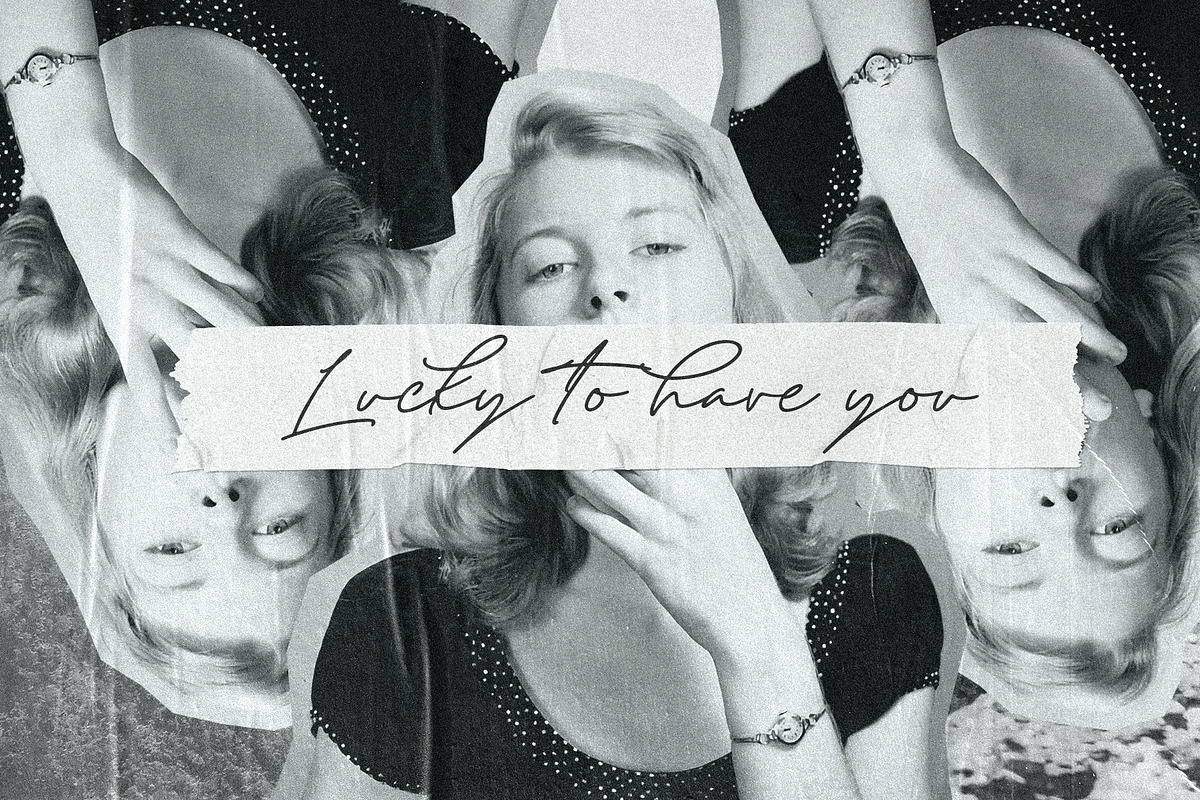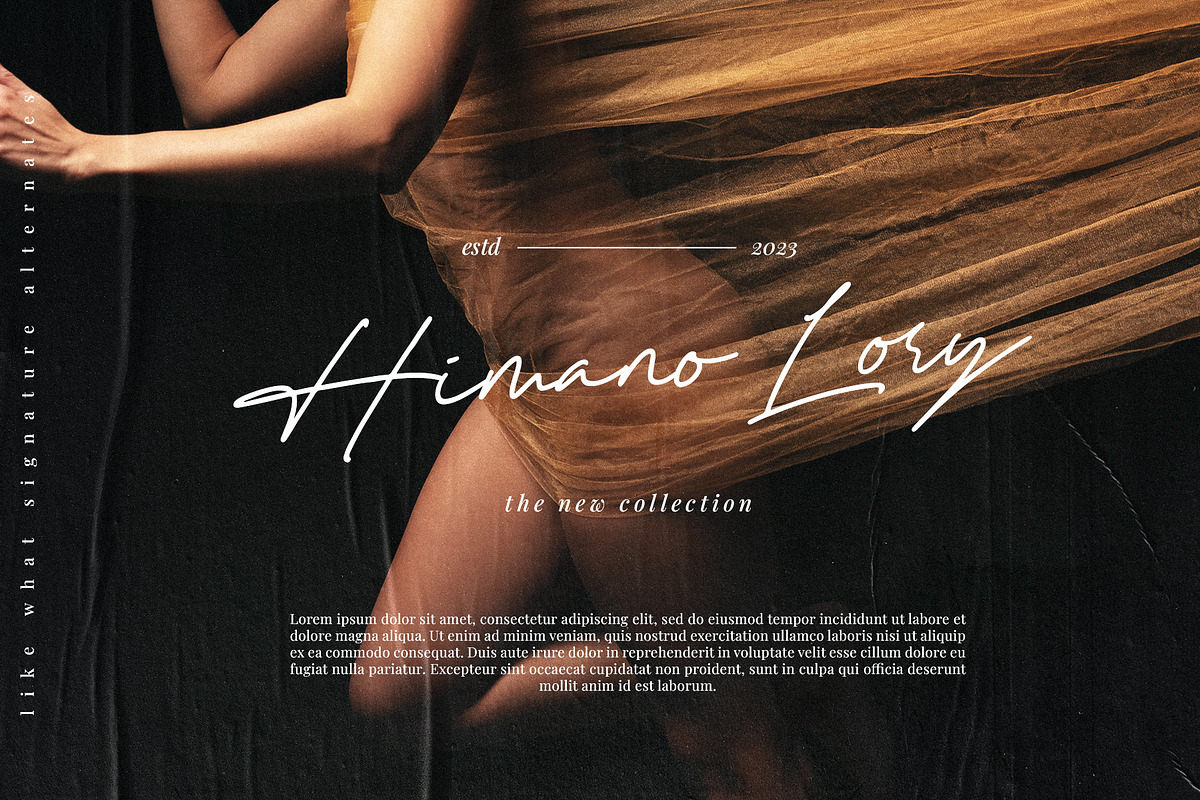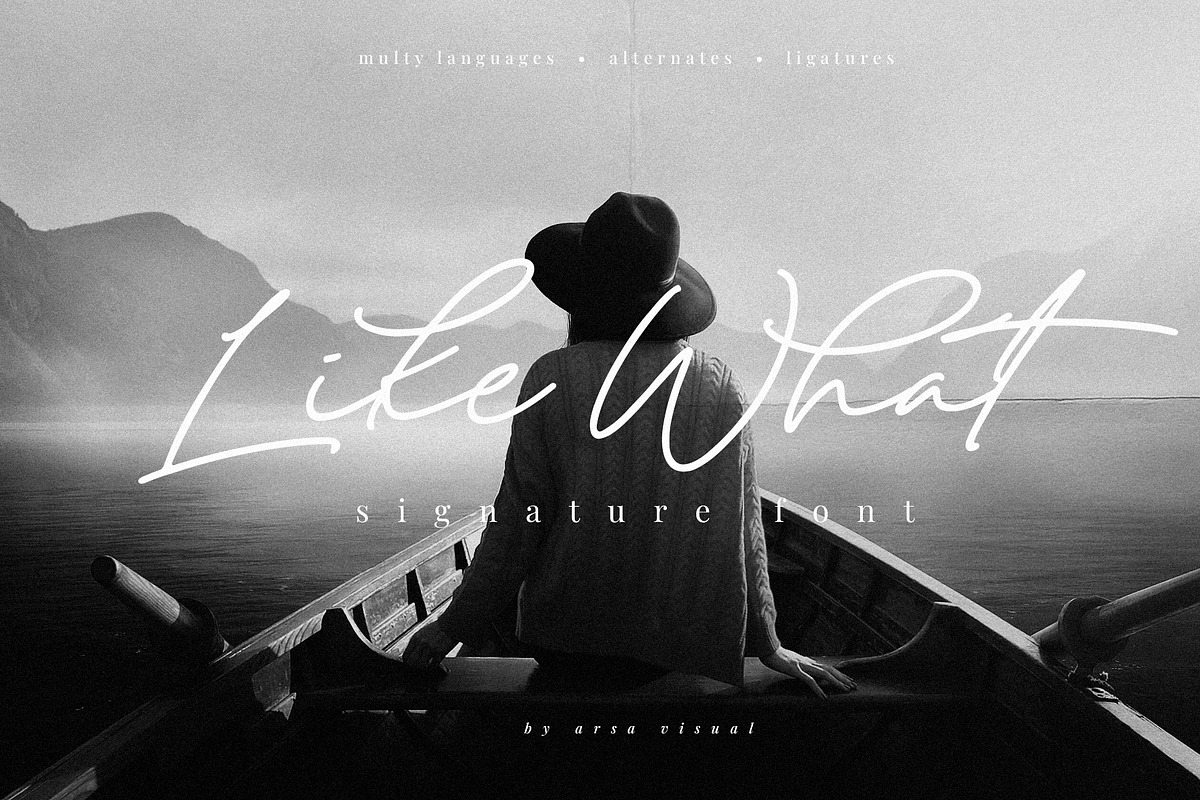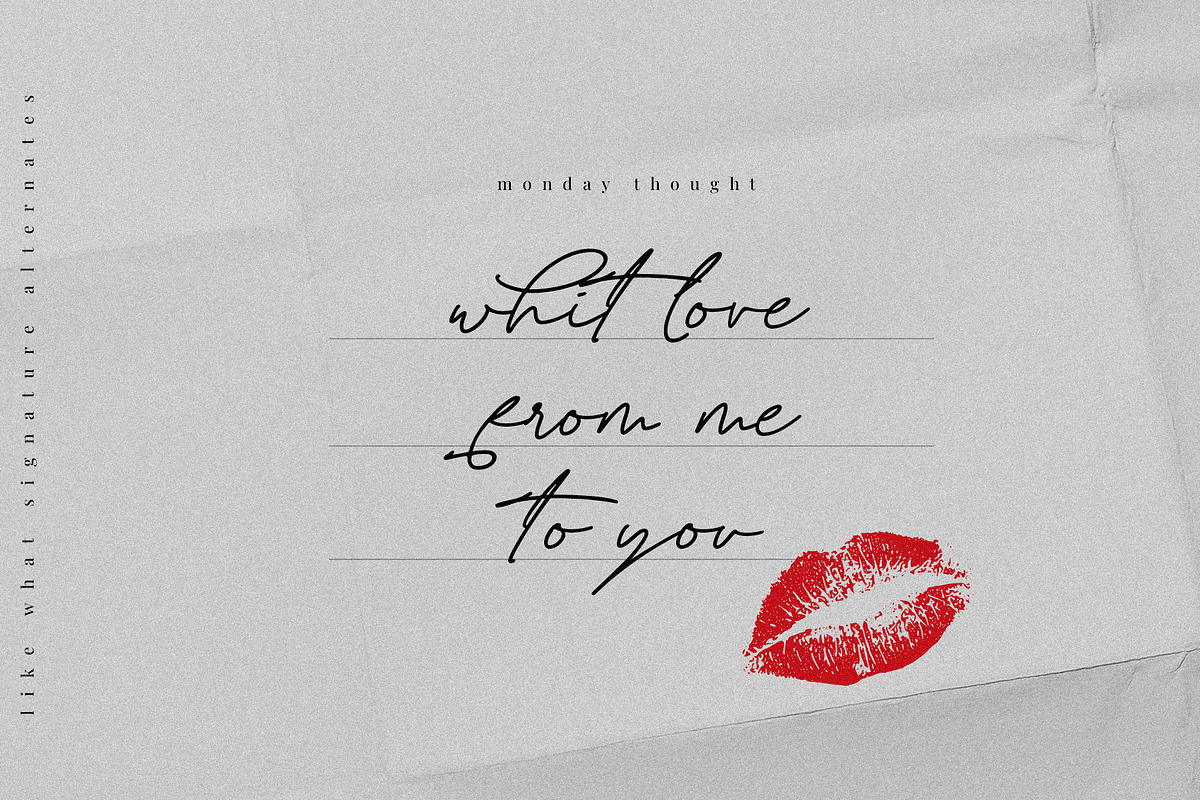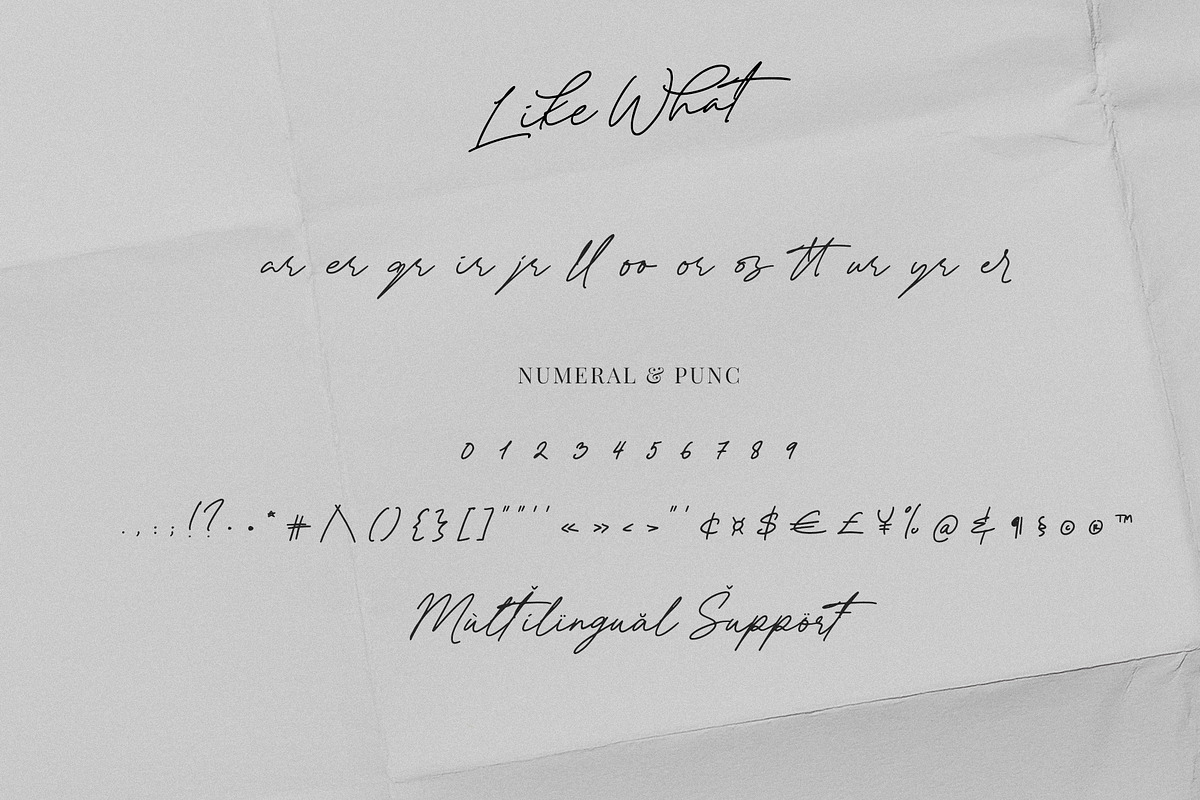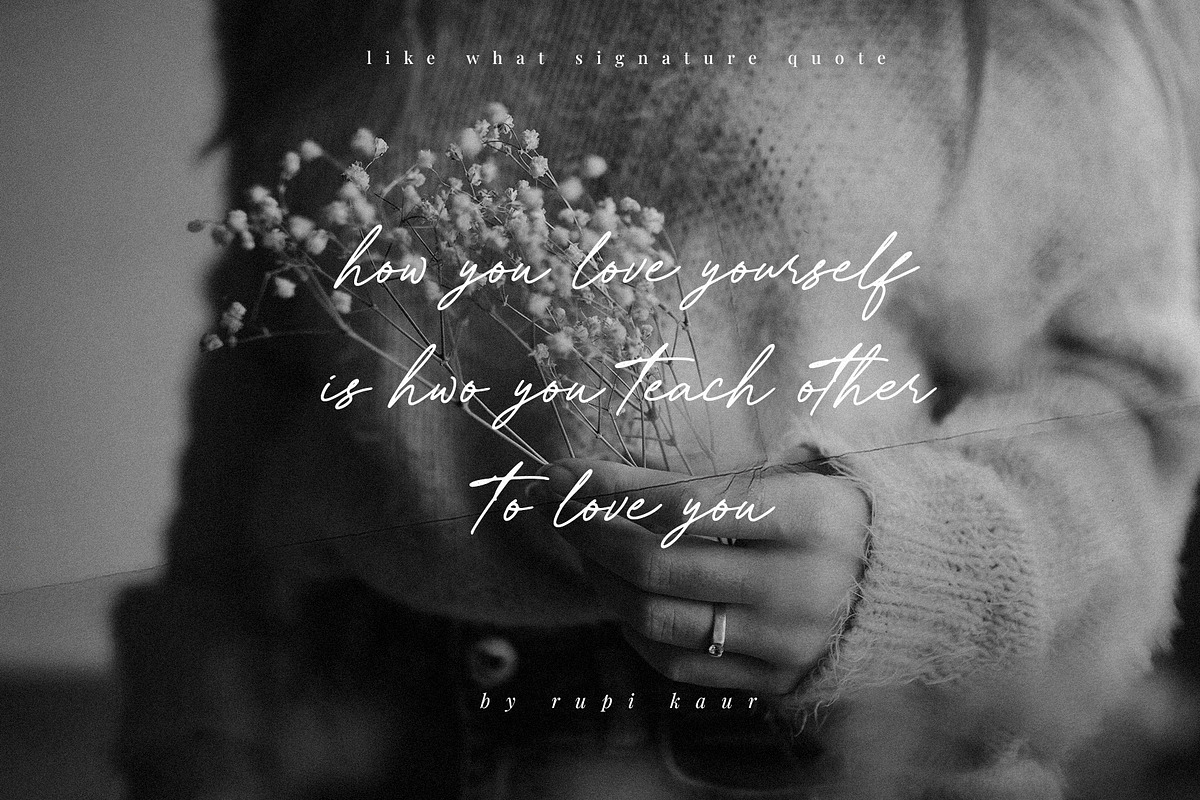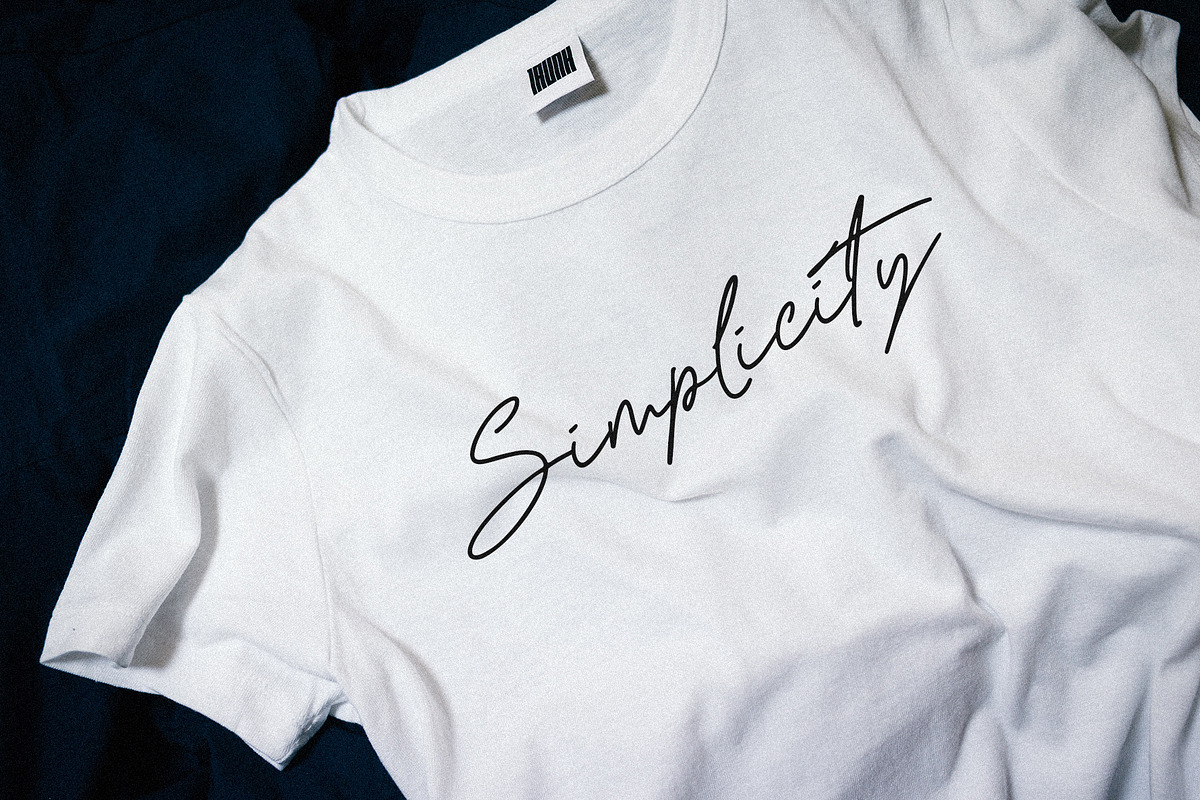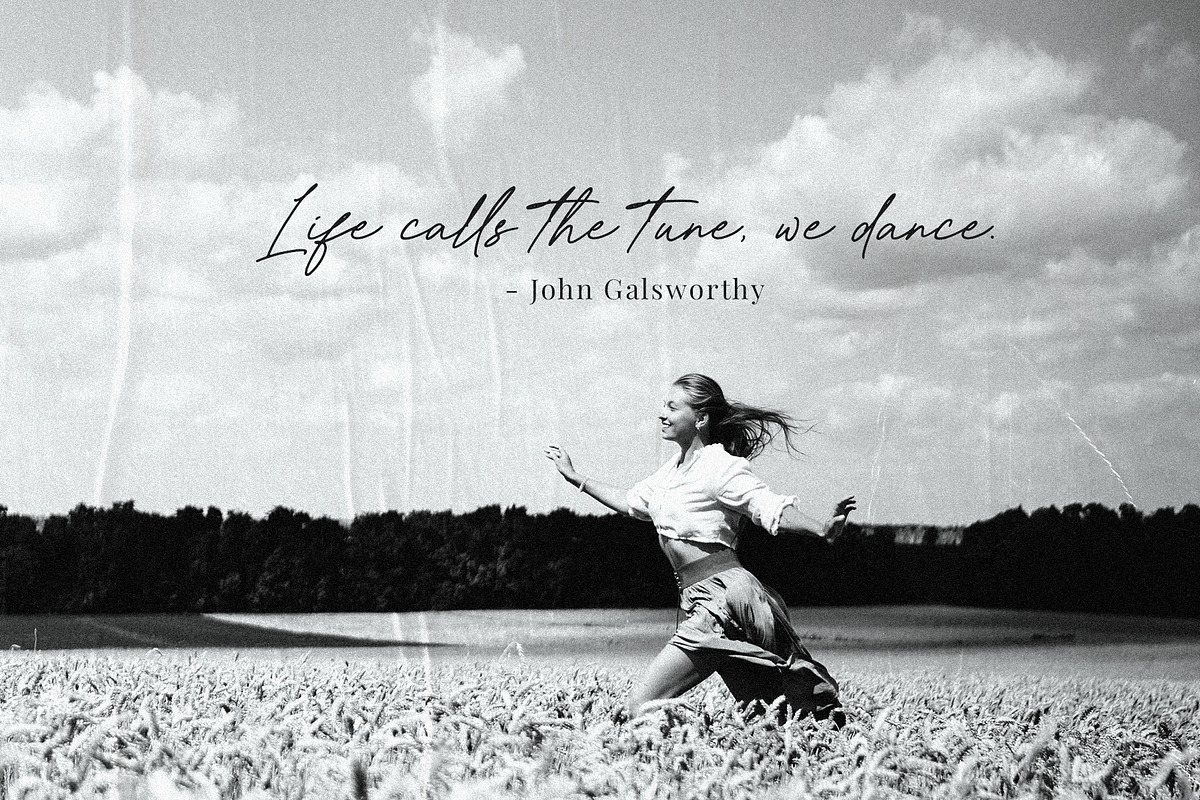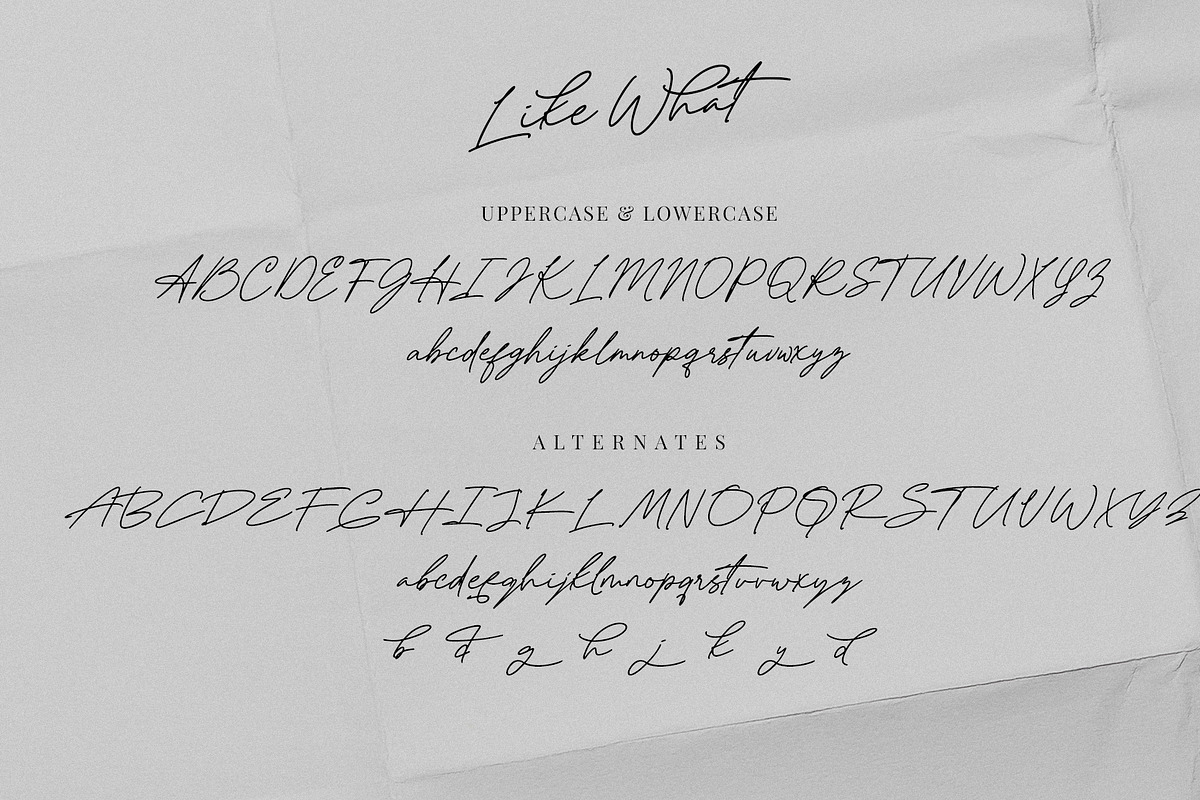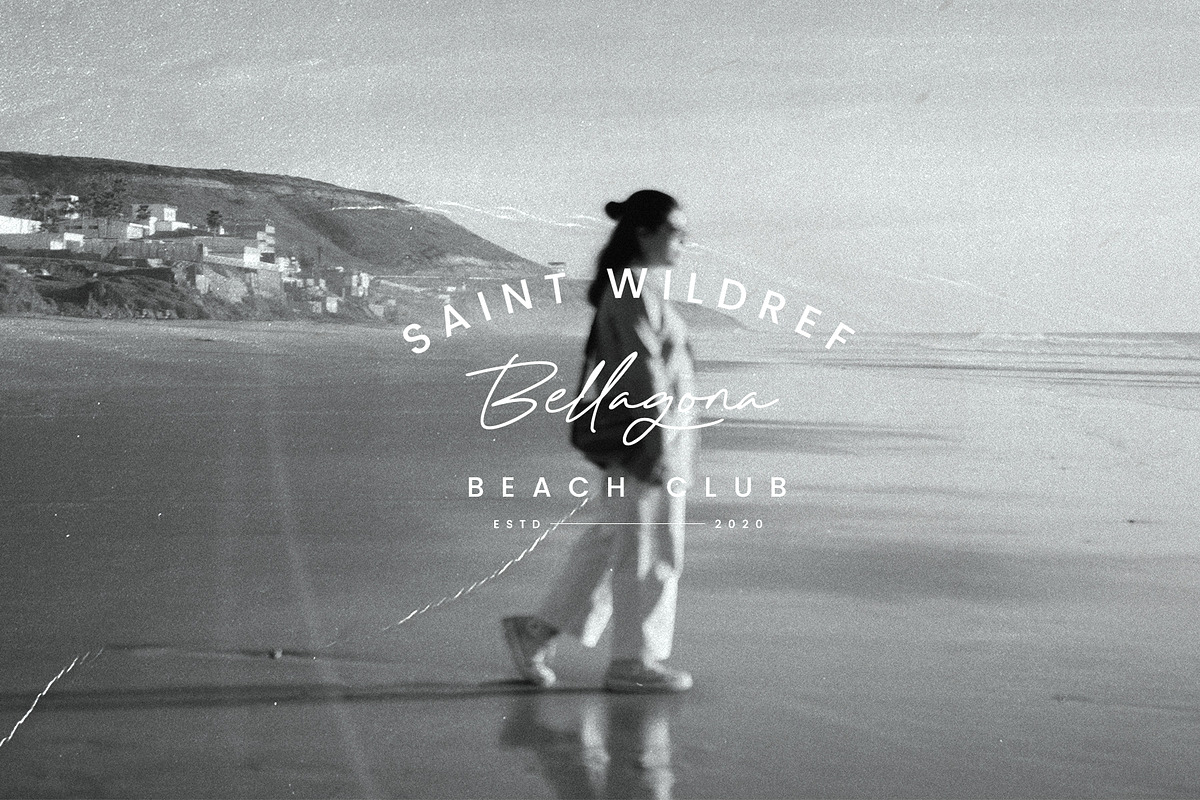
Like What | Script
Like What Signature Font is a modern and awesome handwriting font. Like What can make any design idea to be beautiful! This font will work for invitation design, wedding design, fashion design, advertising design, posters, packaging, book cover title, quote, social media and many more.
Feature and what inside:
- Uppercase and Lowercase Alternates
- Number and Punctuation
- Multi Languages